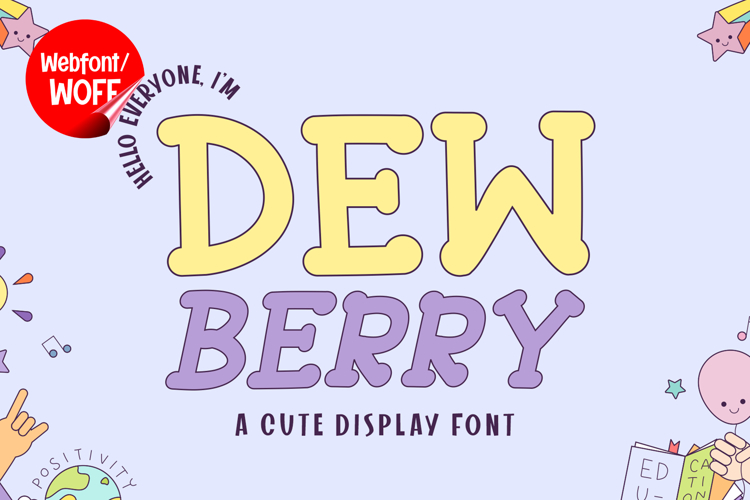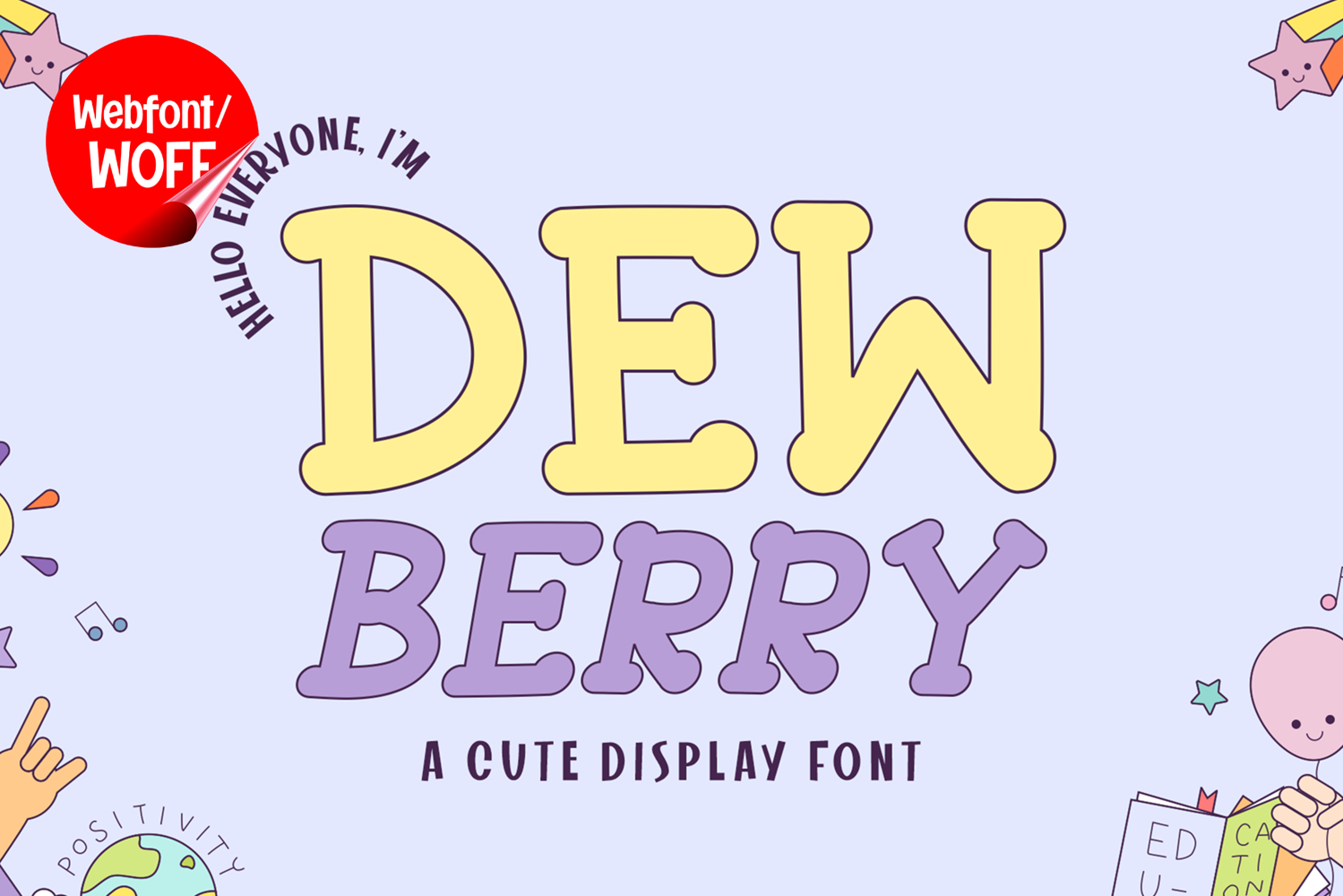
Dewberry | Italic Cute Display Webfont for Playful Websites
Dewberry is an italic cute display webfont designed to bring a soft, playful, and charming personality into modern website design. Featuring rounded shapes combined with a gentle slanted style, this font delivers a friendly and lively appearance that feels both fun and engaging. It is an excellent choice for projects that aim to create a warm and approachable visual identity with a touch of movement.
Dewberry includes a complete set of uppercase characters designed with soft curves and an italic structure. The slanted forms add a sense of flow and energy, while the rounded shapes keep the overall look friendly and inviting. These letterforms are ideal for headlines, banners, hero sections, and featured content where a cute and eye-catching style is needed.
In addition to letters, the font includes numbers and punctuation, allowing flexible usage across various parts of a website. It works well for product highlights, promotional text, pricing displays, and call-to-action sections. Each character maintains a consistent cute and italic style, ensuring a cohesive and unified visual identity throughout the layout.
With multilingual support, Dewberry includes a wide range of accented characters, making it suitable for international websites and global audiences. This allows content to be displayed clearly across different languages while preserving the playful and charming aesthetic.
The italic cute display style of Dewberry makes it especially suitable for children’s websites, lifestyle brands, beauty products, creative portfolios, and social media-focused designs. Its soft and playful character adds personality and warmth, helping websites stand out in a friendly and engaging way. The italic angle also adds subtle motion, making the design feel more dynamic.
Despite its decorative and playful appearance, Dewberry is designed with readability in mind. The spacing and proportions are carefully balanced to ensure clarity, particularly in display sizes. This makes it effective for impactful headings and short content elements where both style and usability are important.
Dewberry is a webfont that combines cute design with italic movement and modern digital performance. Its rounded forms, smooth flow, and cheerful character create a distinctive typographic presence that enhances website design. For projects that require a fun, charming, and visually appealing font, Dewberry offers a reliable and engaging solution.